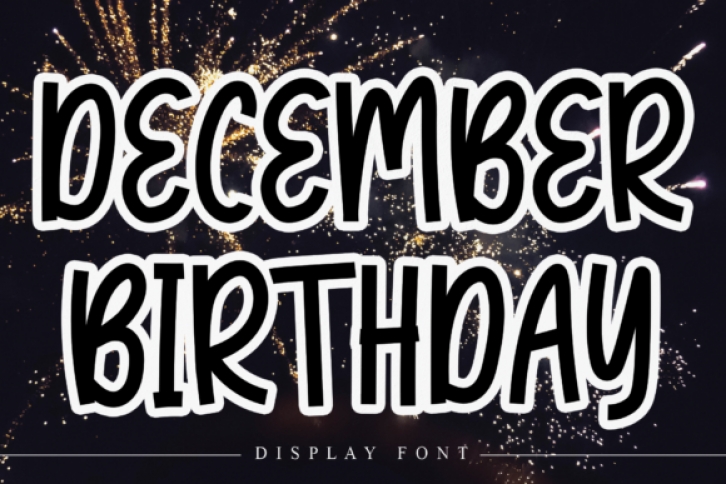
December Birthday is a trendy and neat display font. It will add an incredibly joyful touch to your designs. Add this beautiful display font to each of your creative ideas and notice how it makes them stand out!